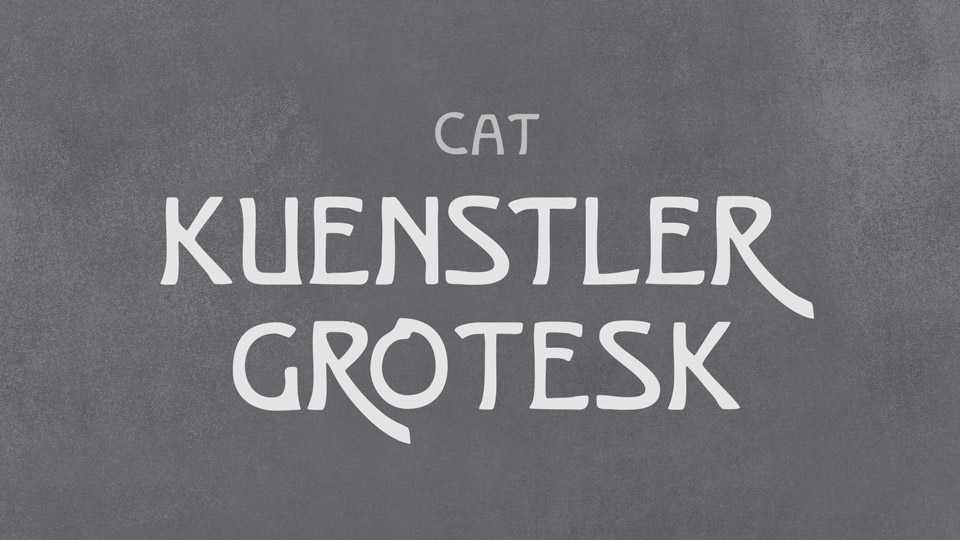
Download Kunstler Grotesk font, a sans serif typeface, originally released by Bauer’sche Giesserei of Frankfurt am Main circa 1900. Kunstler Grotesk has an appealing boldness that reverses well.